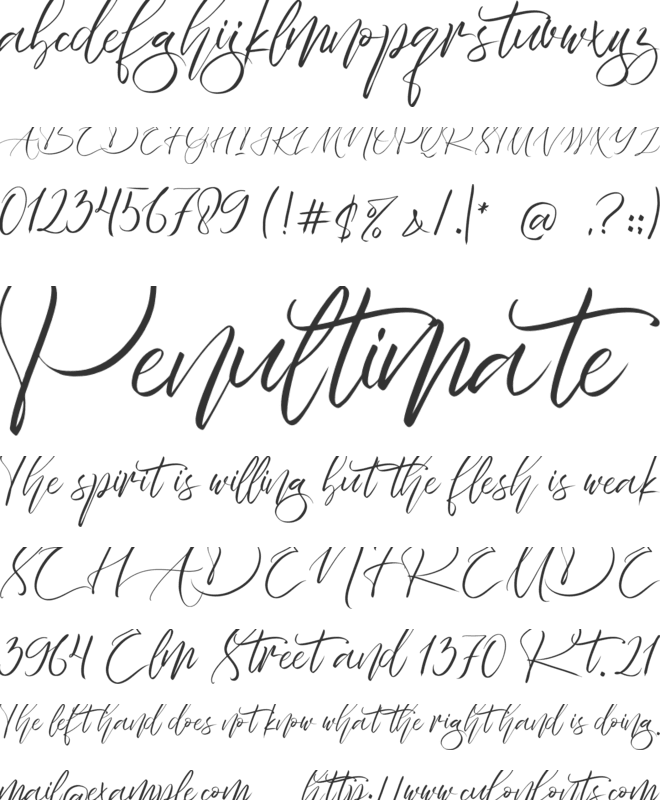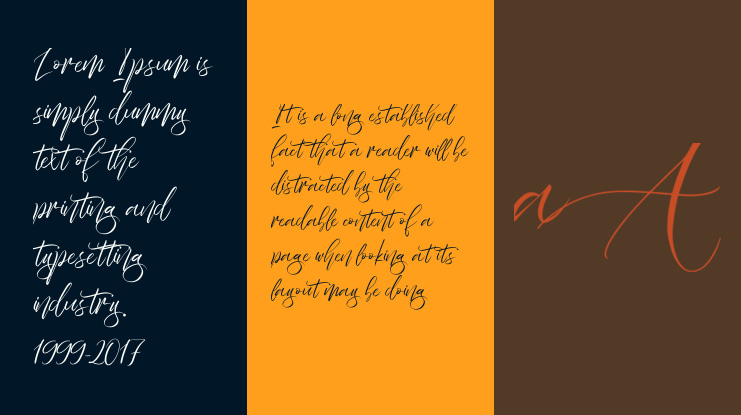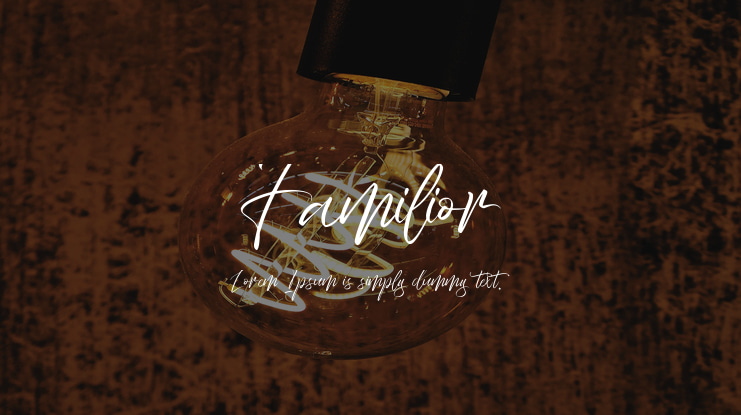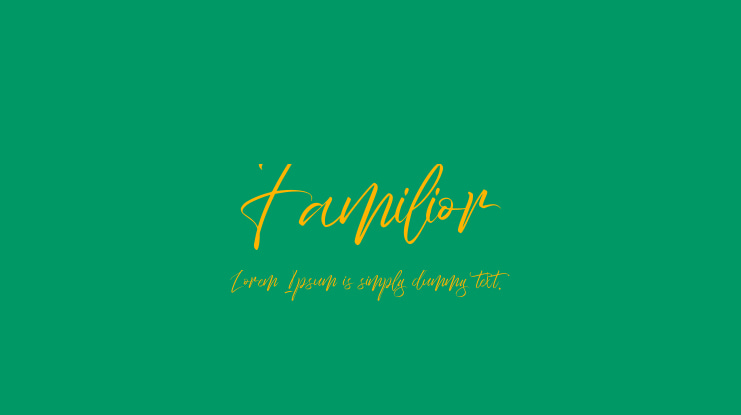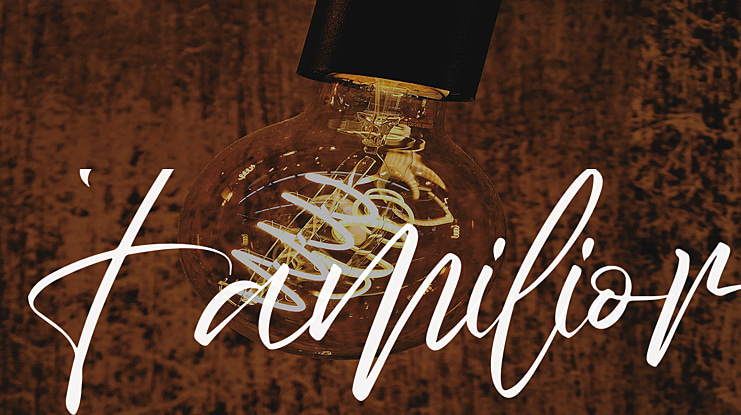
Familior Font
Agni Ardi Rein Prasetyo
Familior is a handwritten, signature font family with alternates, ending swash, natural ligatures and swash. Inky and expressive yet readable and functional, this typeface is designed to look perfect fit for signature logos.